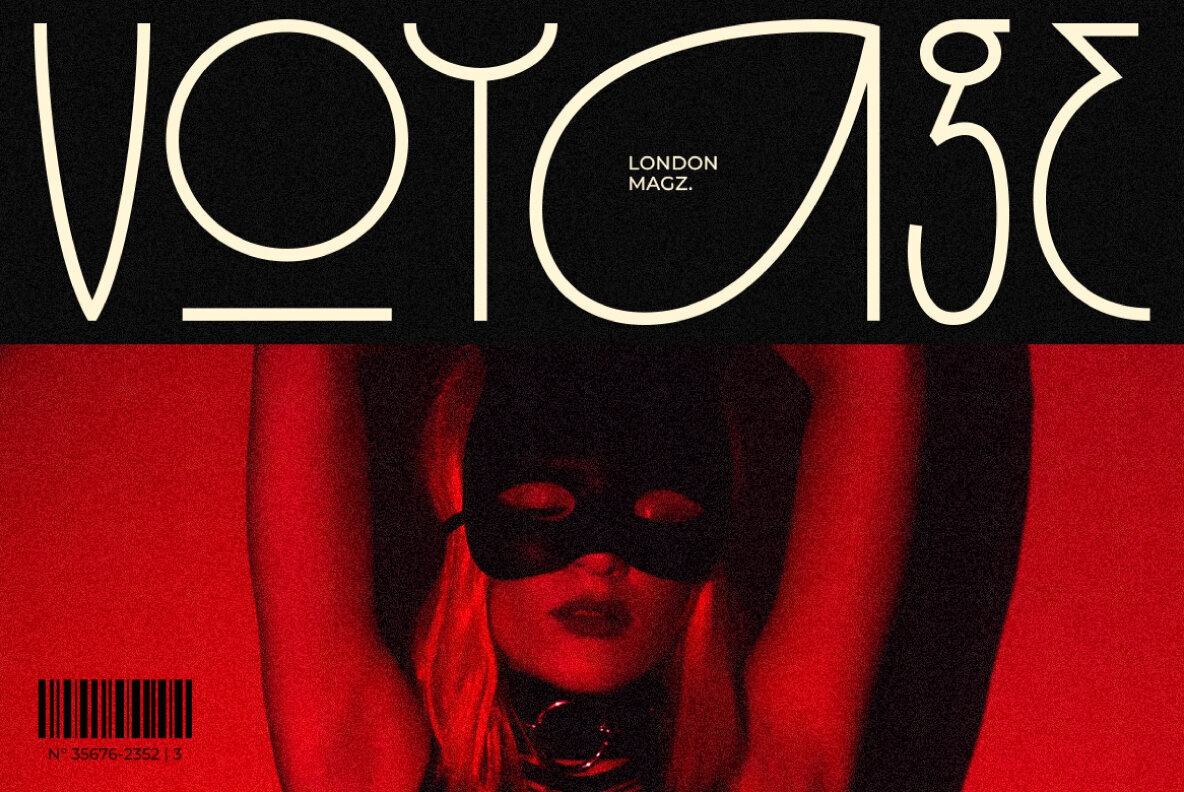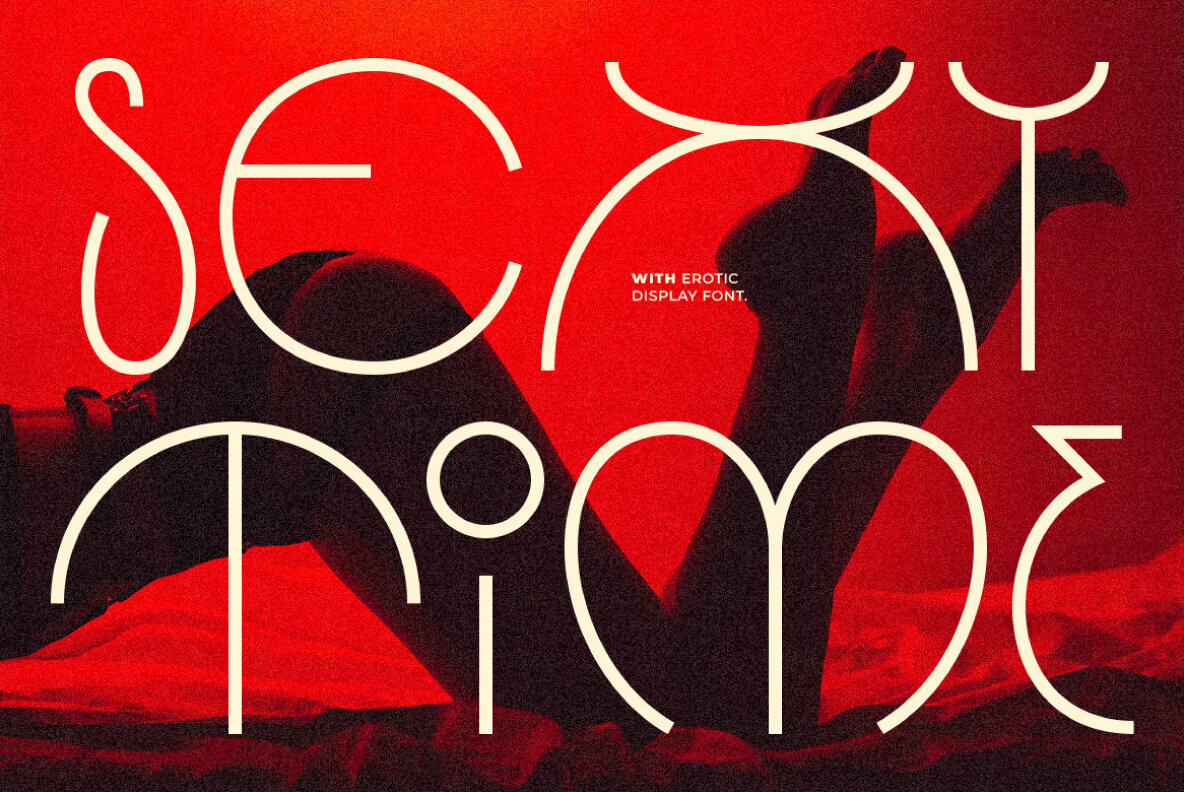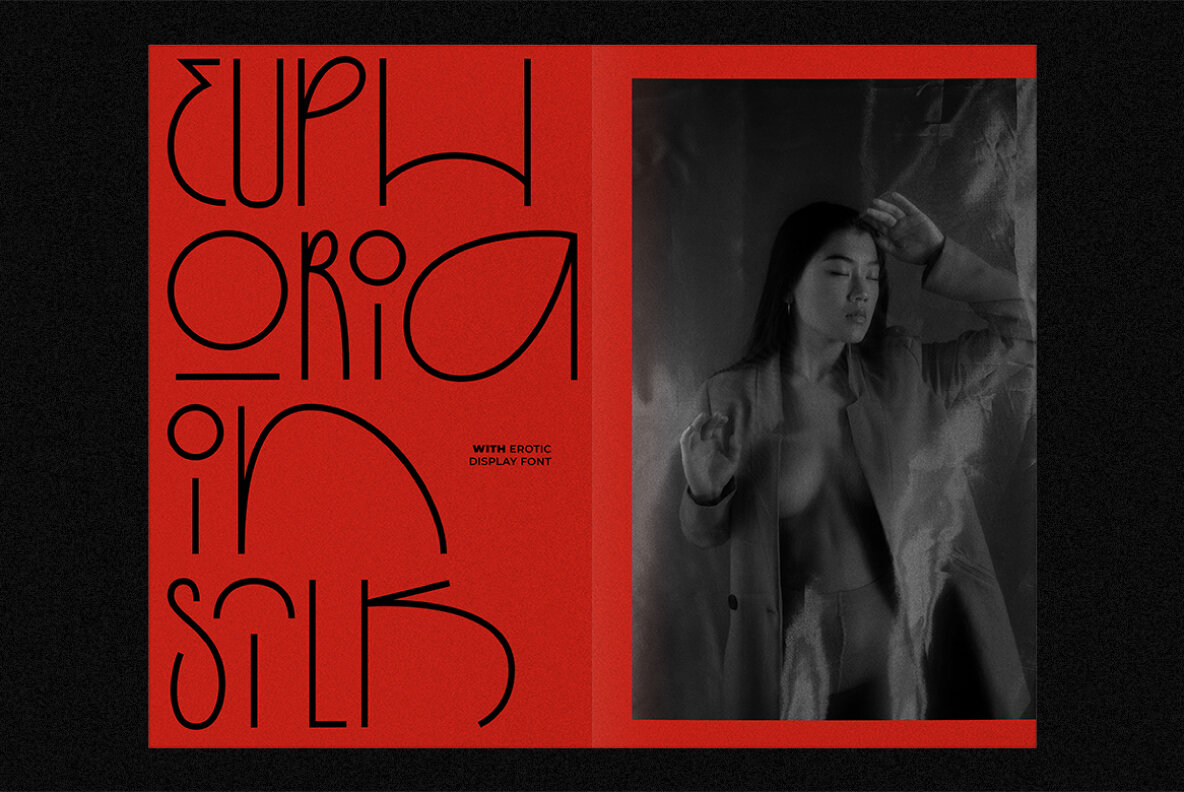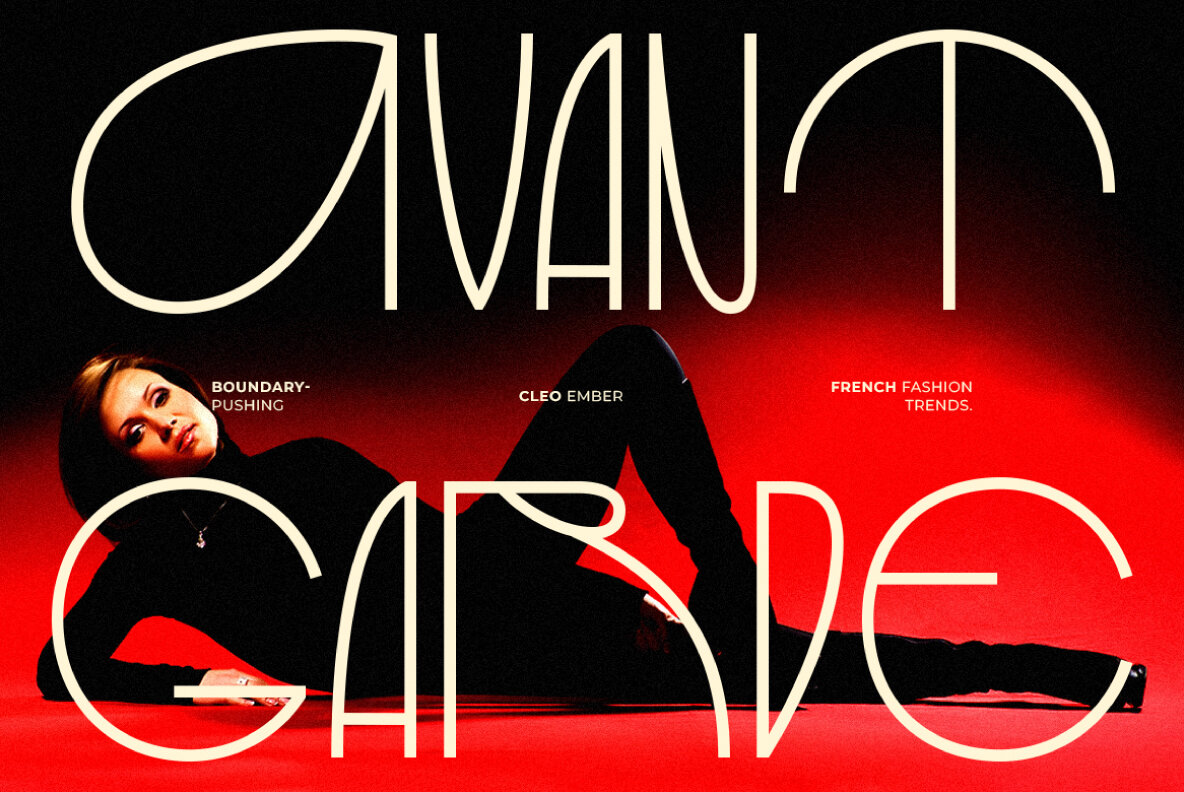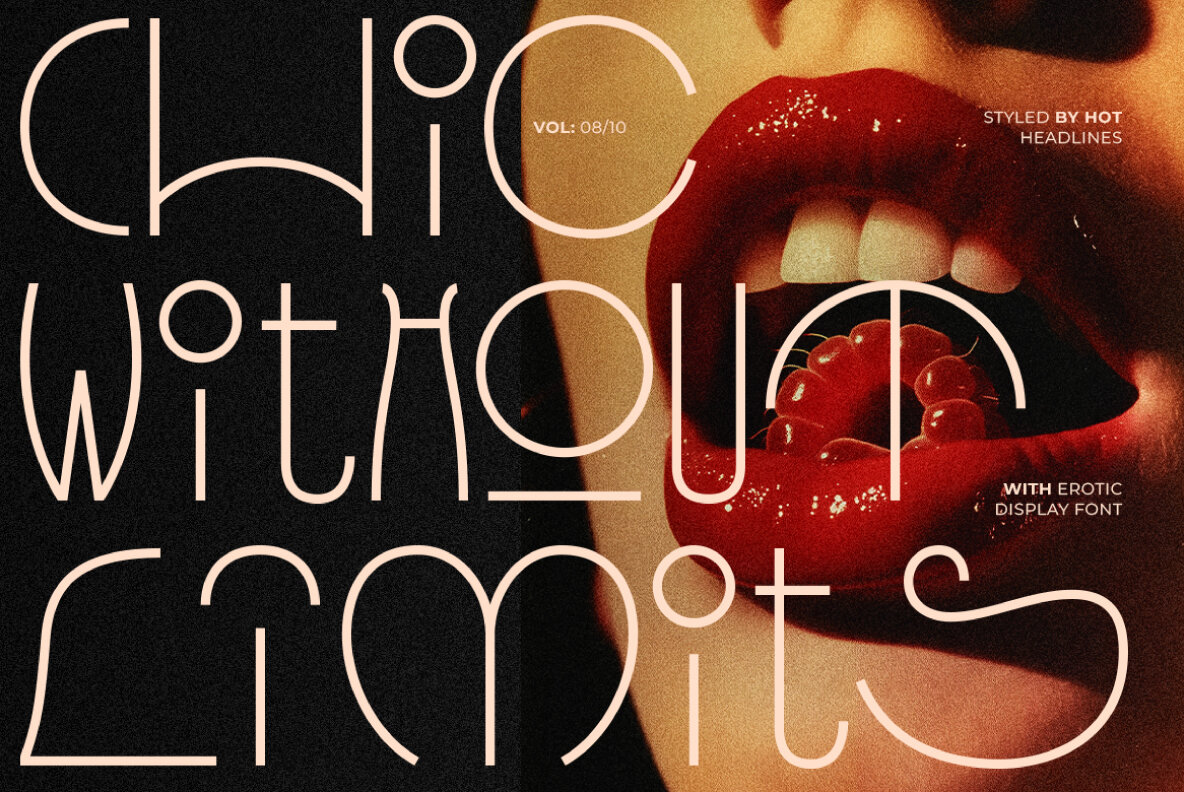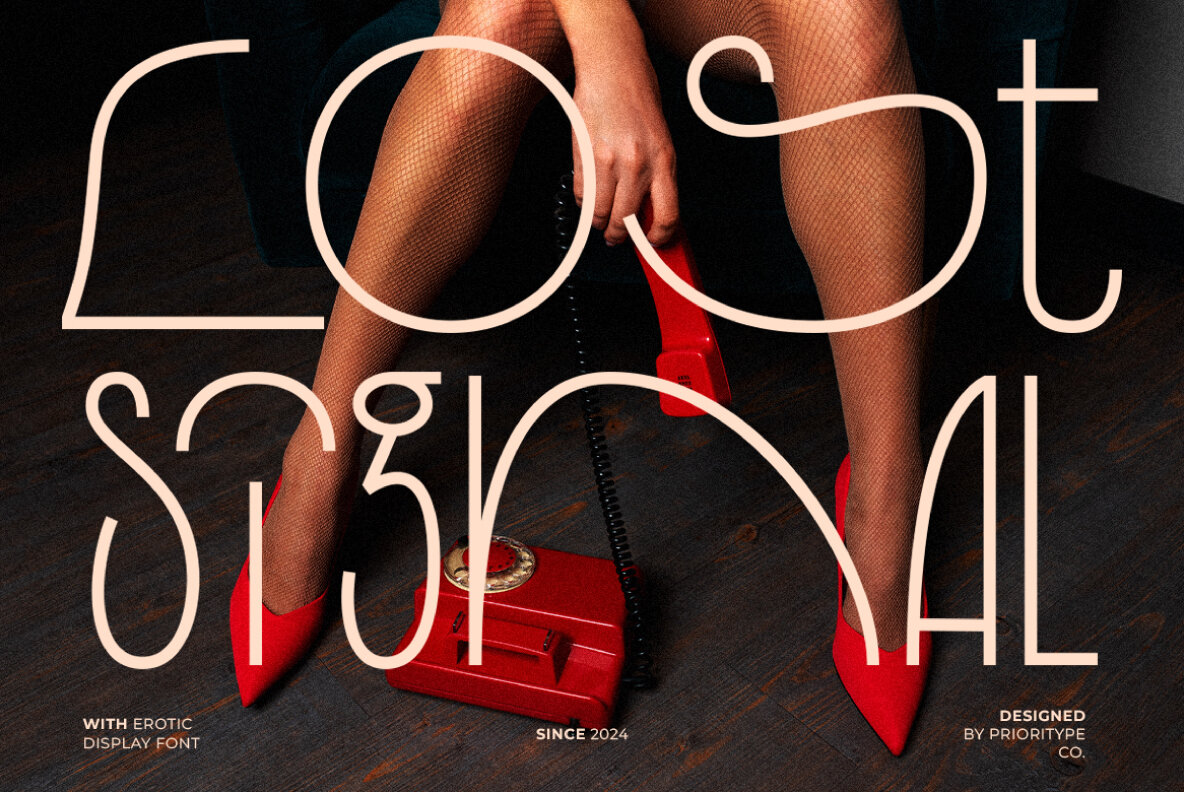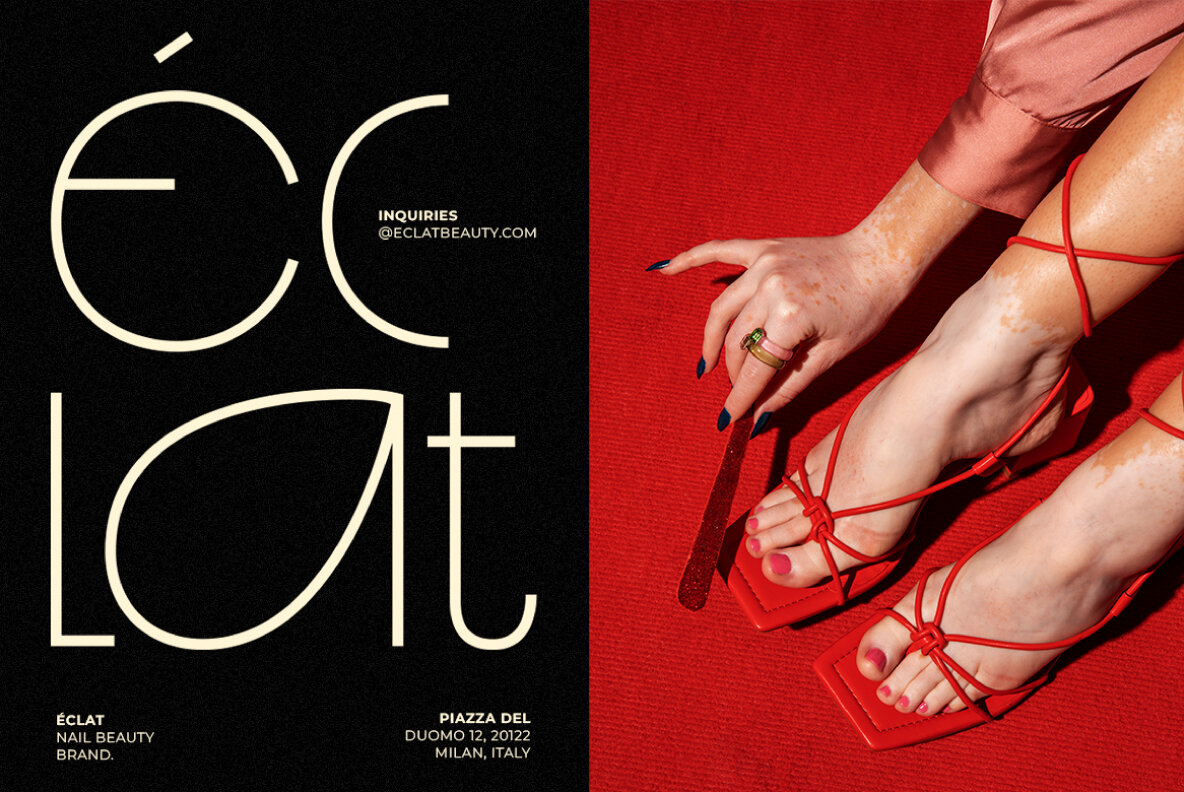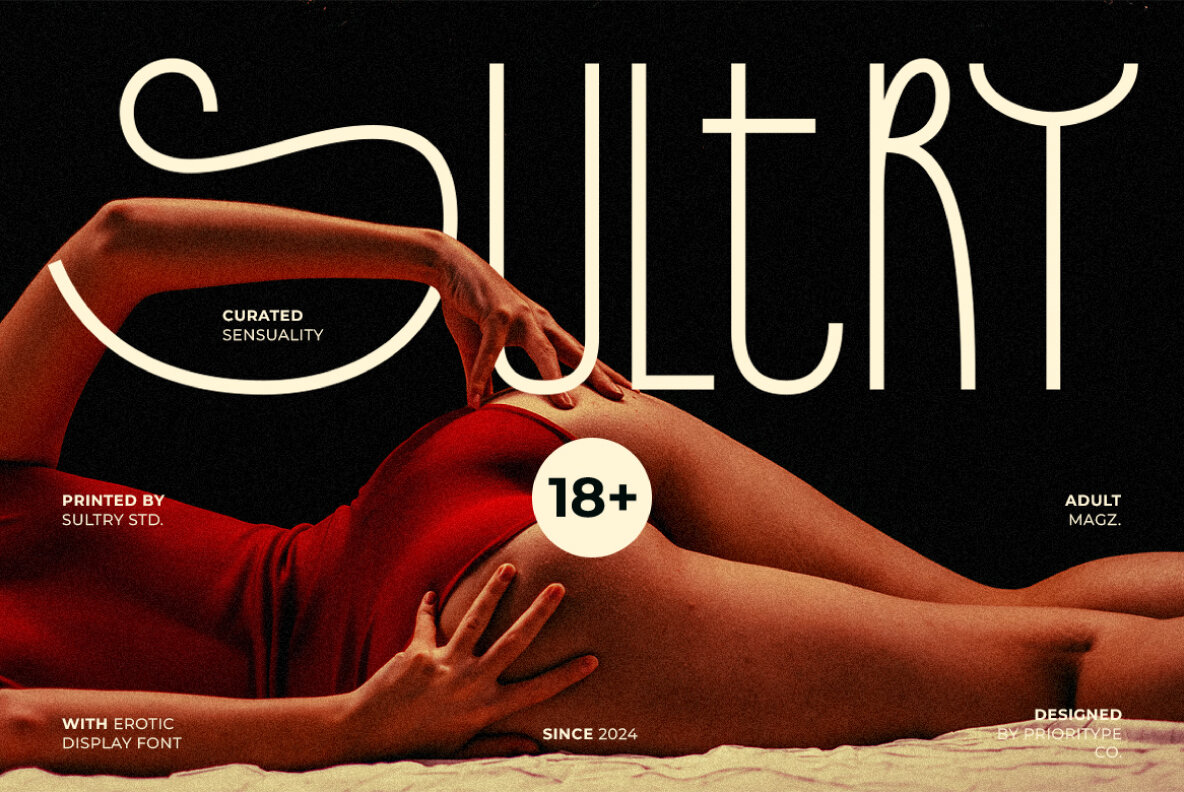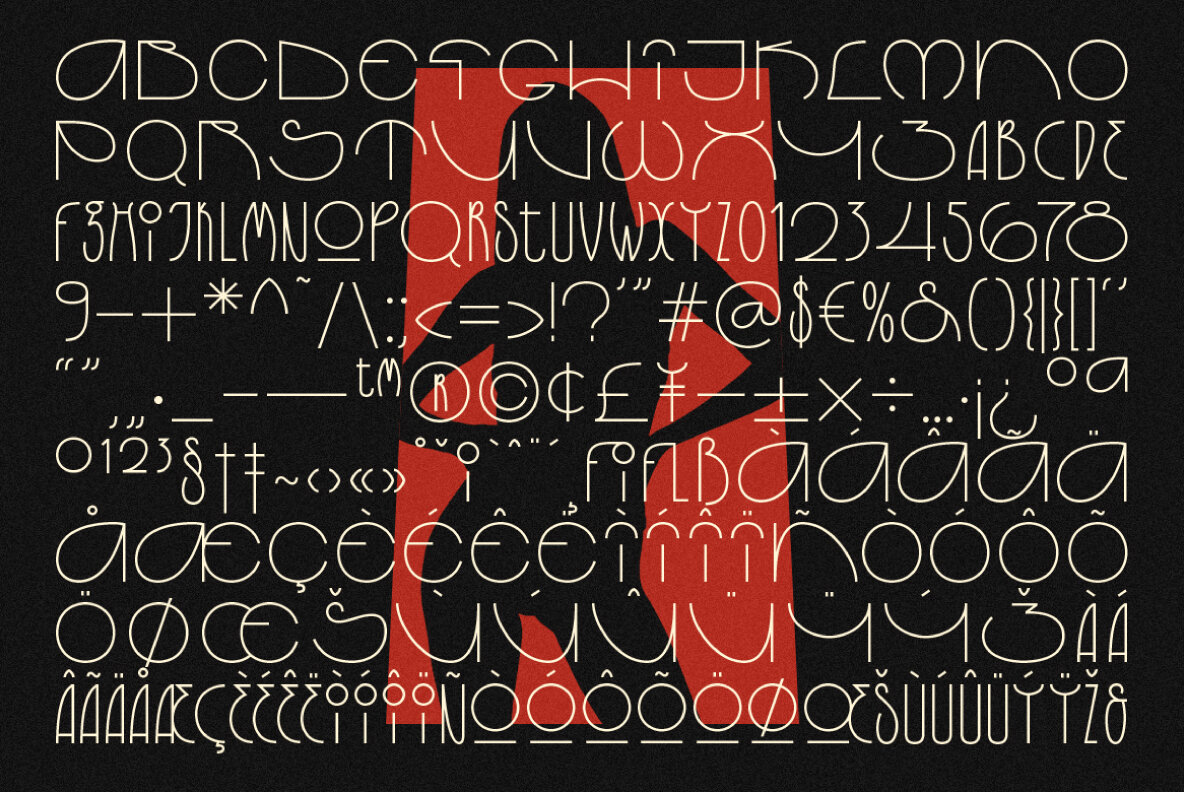
Erotic Display Font
Erotic Display
Erotic Display Font is designed for those who wish to infuse their projects with bold and expressive flair. Featuring sensuous curves and striking lines, this font is perfect for creating captivating and intriguing designs. It offers a daring, sophisticated aesthetic suitable for posters, high-end branding, and avant-garde magazines, making it an excellent choice for projects that need to stand out.
The unique blend of elegance and edgy allure in Erotic Display makes it a versatile tool for designers aiming to make a memorable impact. Its distinct style enhances the visual appeal, allowing creativity to shine through in a bold statement. Whether for captivating magazine spreads or high-profile branding, this font provides a compelling option that pushes the boundaries of conventional design.